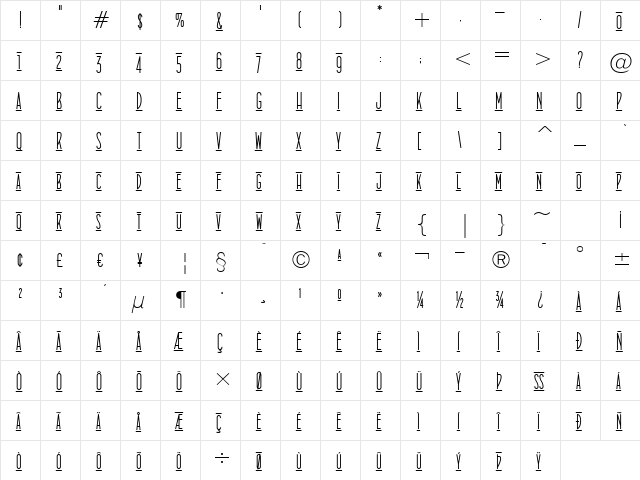
ConcursoItalian BTN Lined Cn Regular
Design Context for ConcursoItalian BTN Lined Cn Typeface
ConcursoItalian BTN Lined Cn is a composed and adaptable typeface that performs quietly and consistently across a wide range of design contexts.